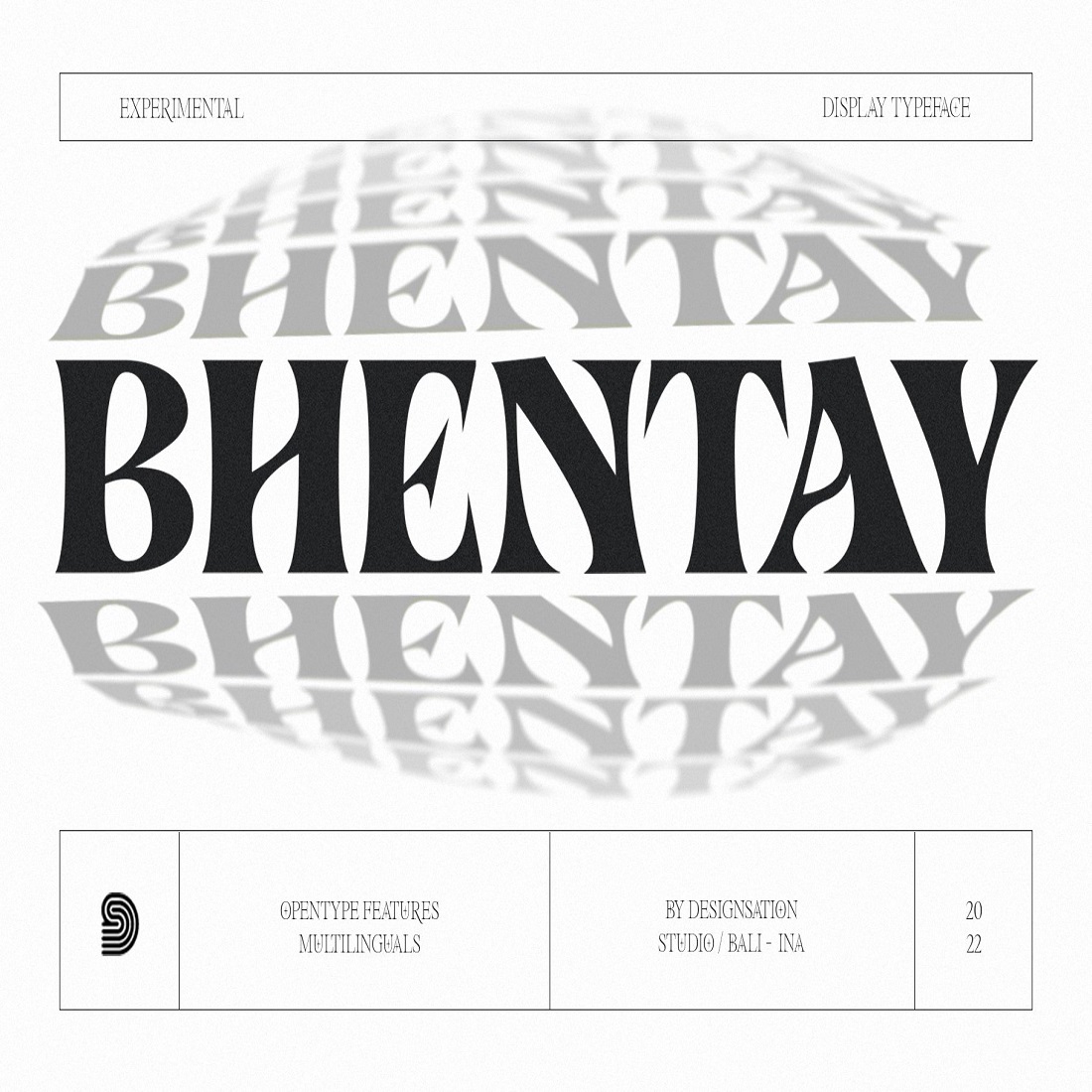
This is a serif font consisting of two styles, Upright and Italic, with different shapes as usual. With a tailed italic typeface and a firm upright style. Both harmonize with the very high contrast for display designation and the horizontal width of the sleek, almost condensed font. The OpenType feature is embedded in the font system. And supports multi-Latin languages. Very fitting for your product design, even though it doesn’t have the nuances of the massive nineties lately.